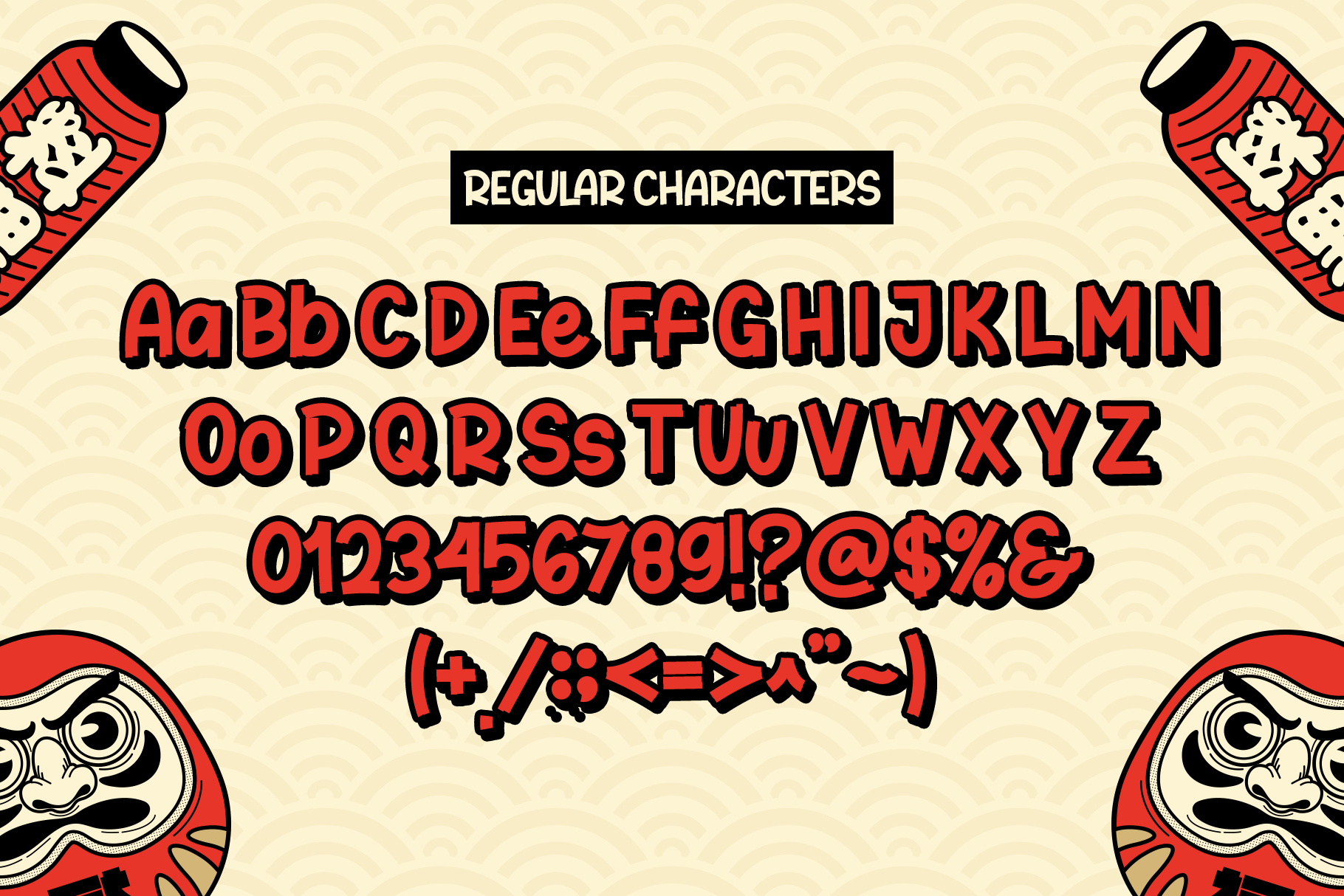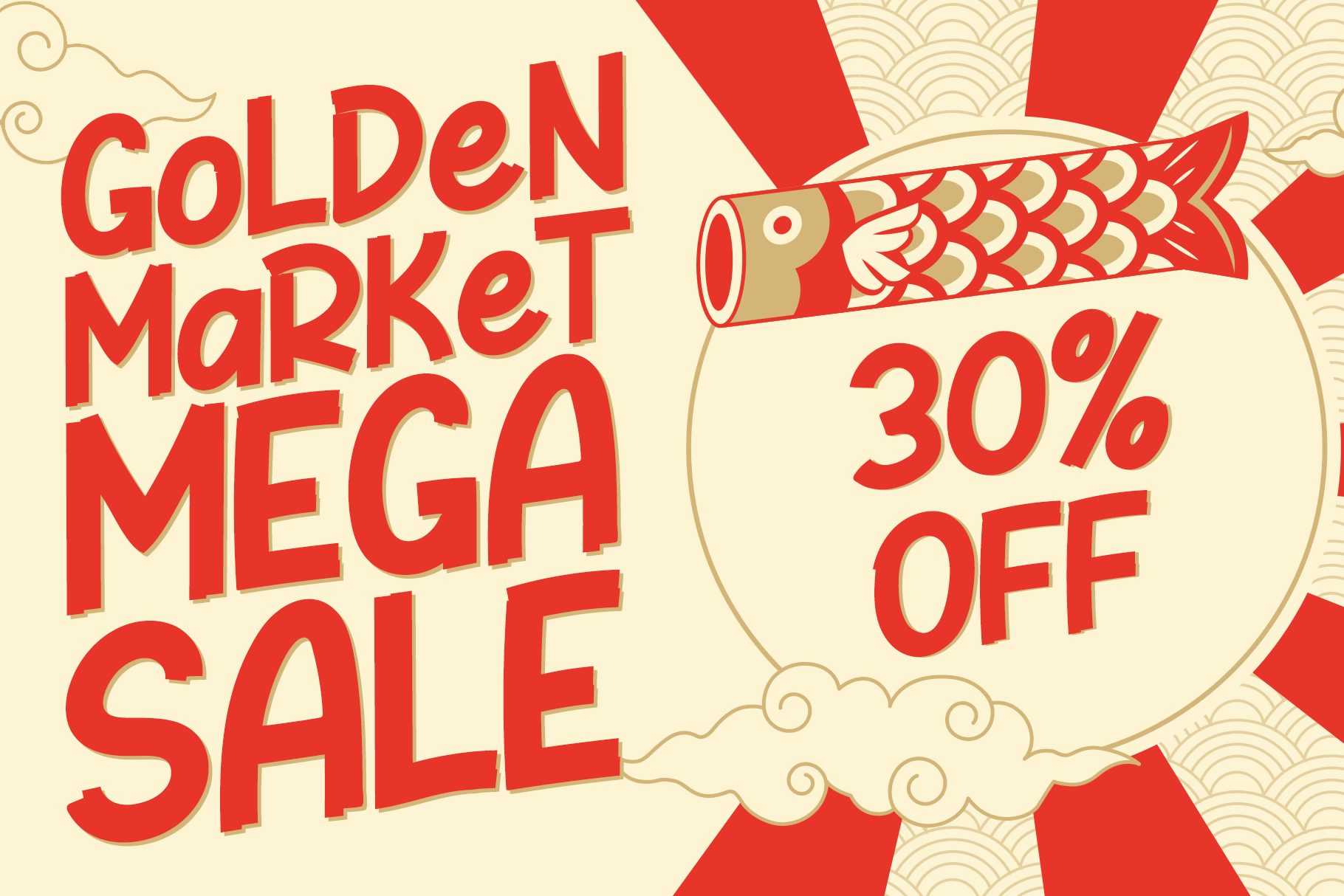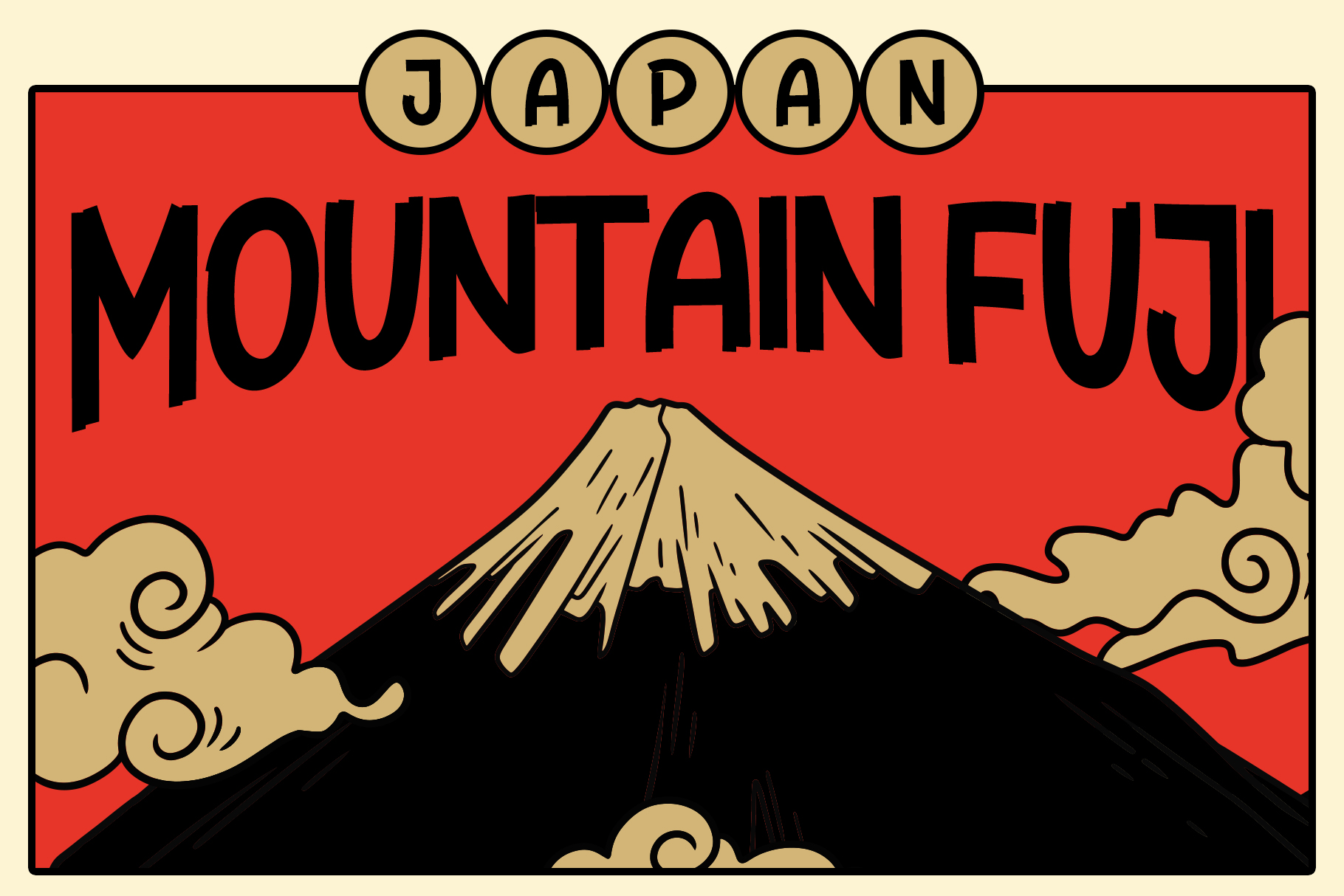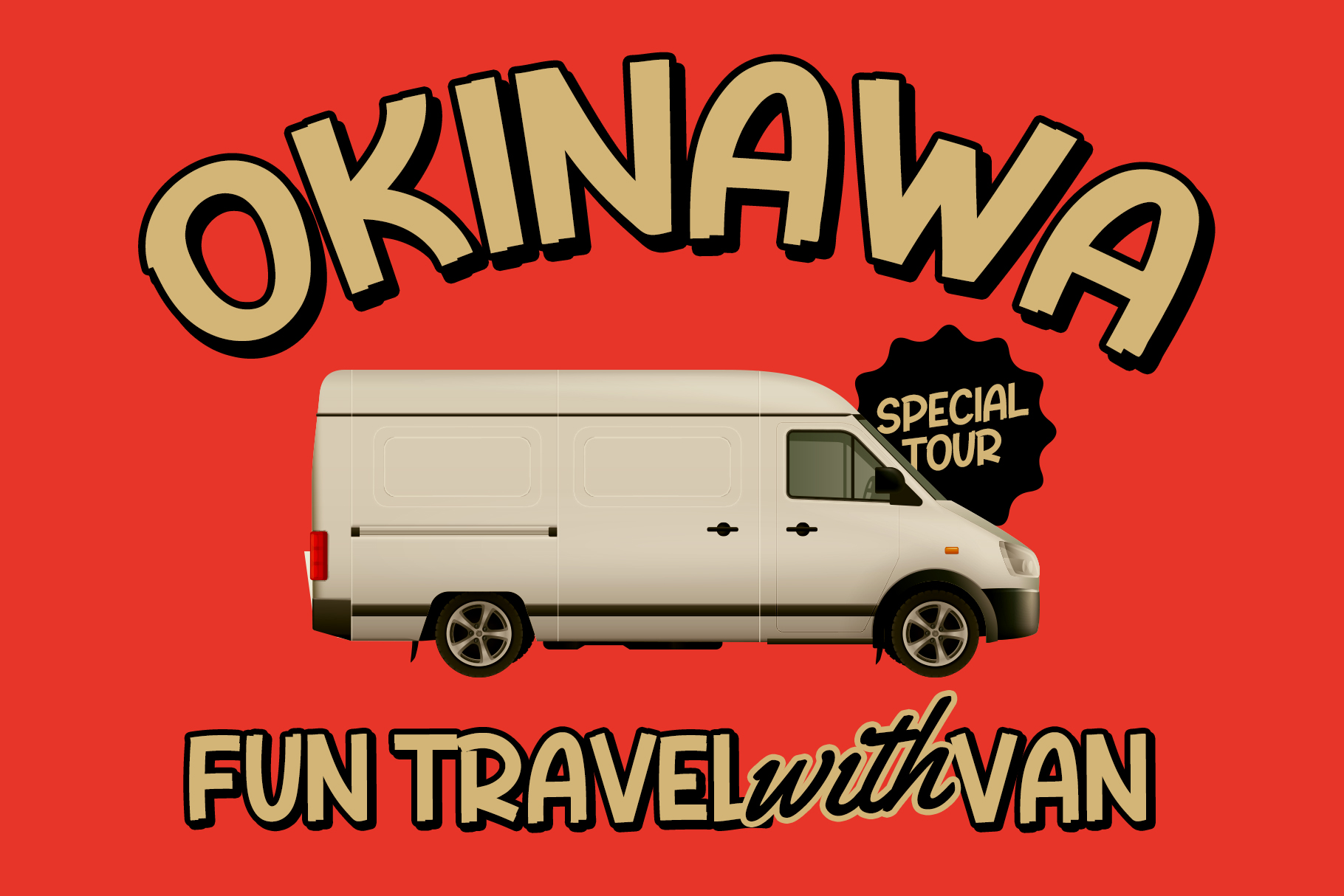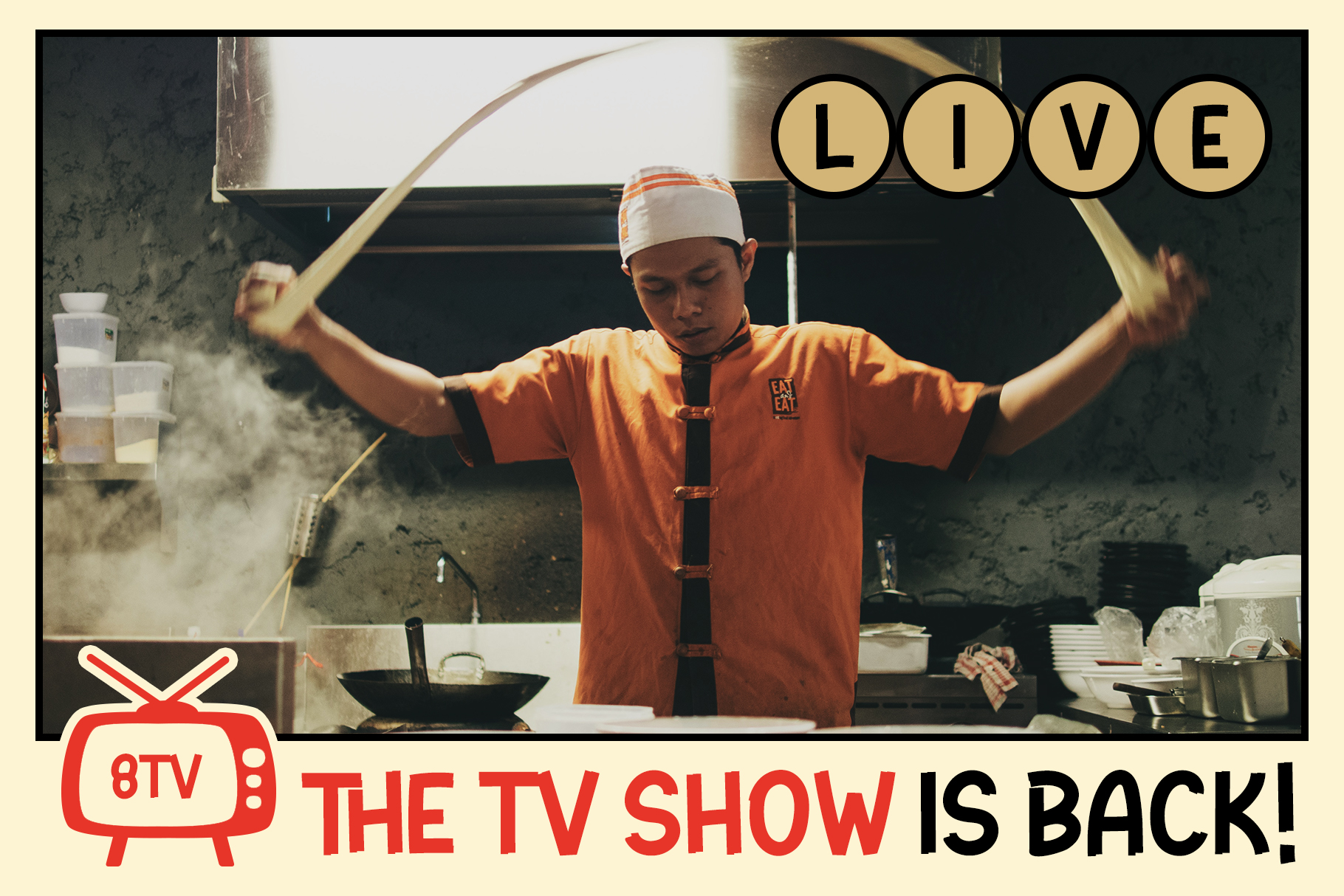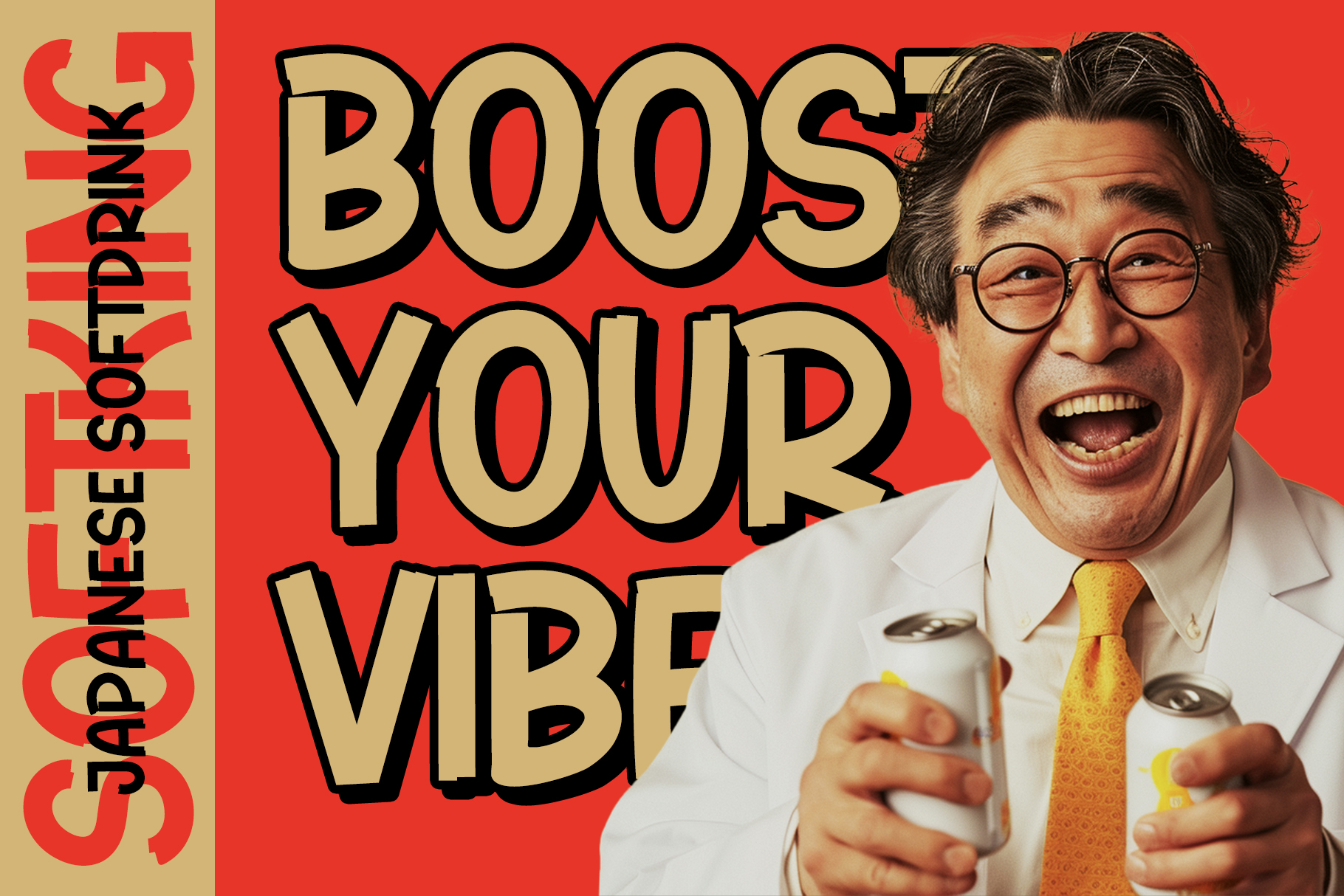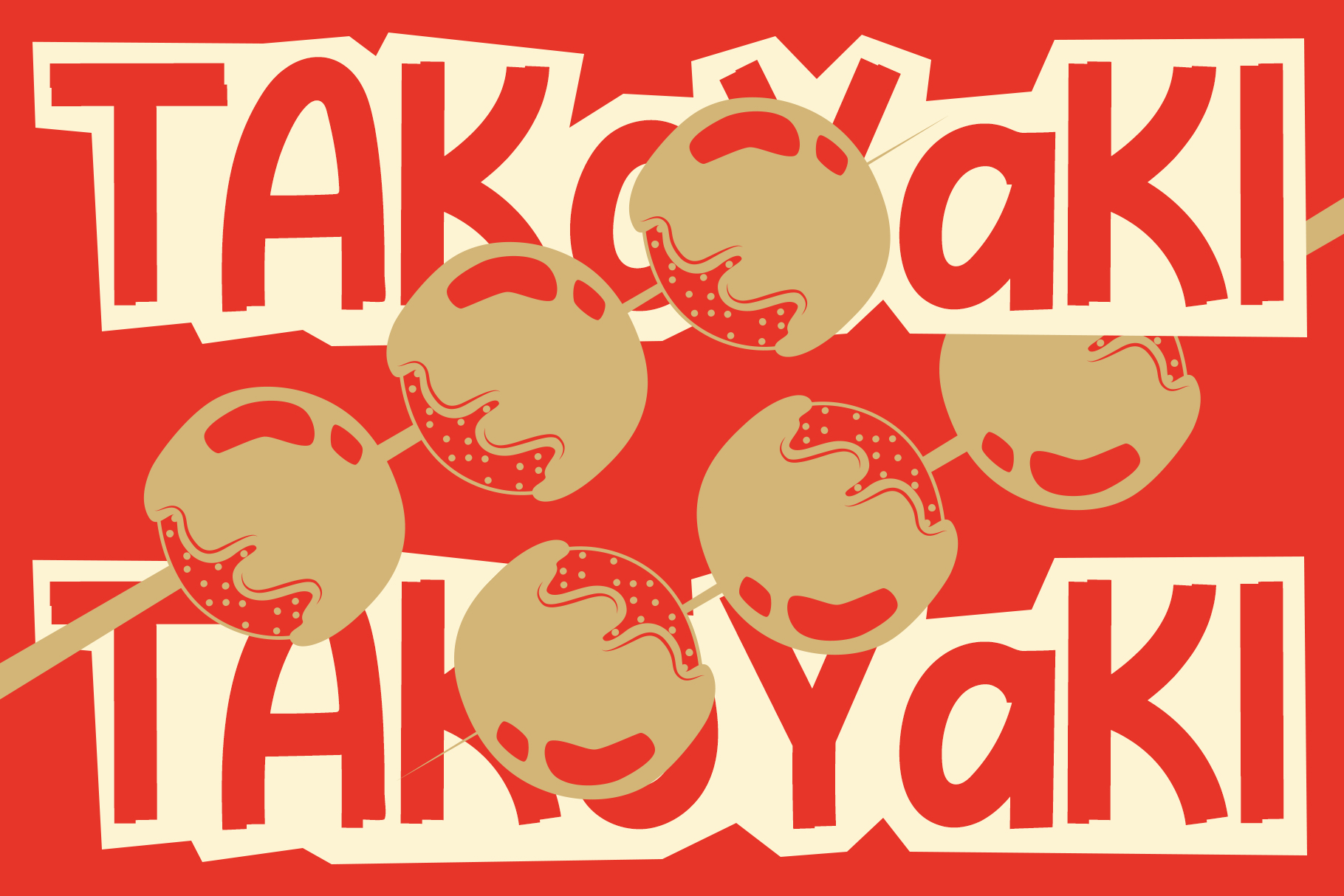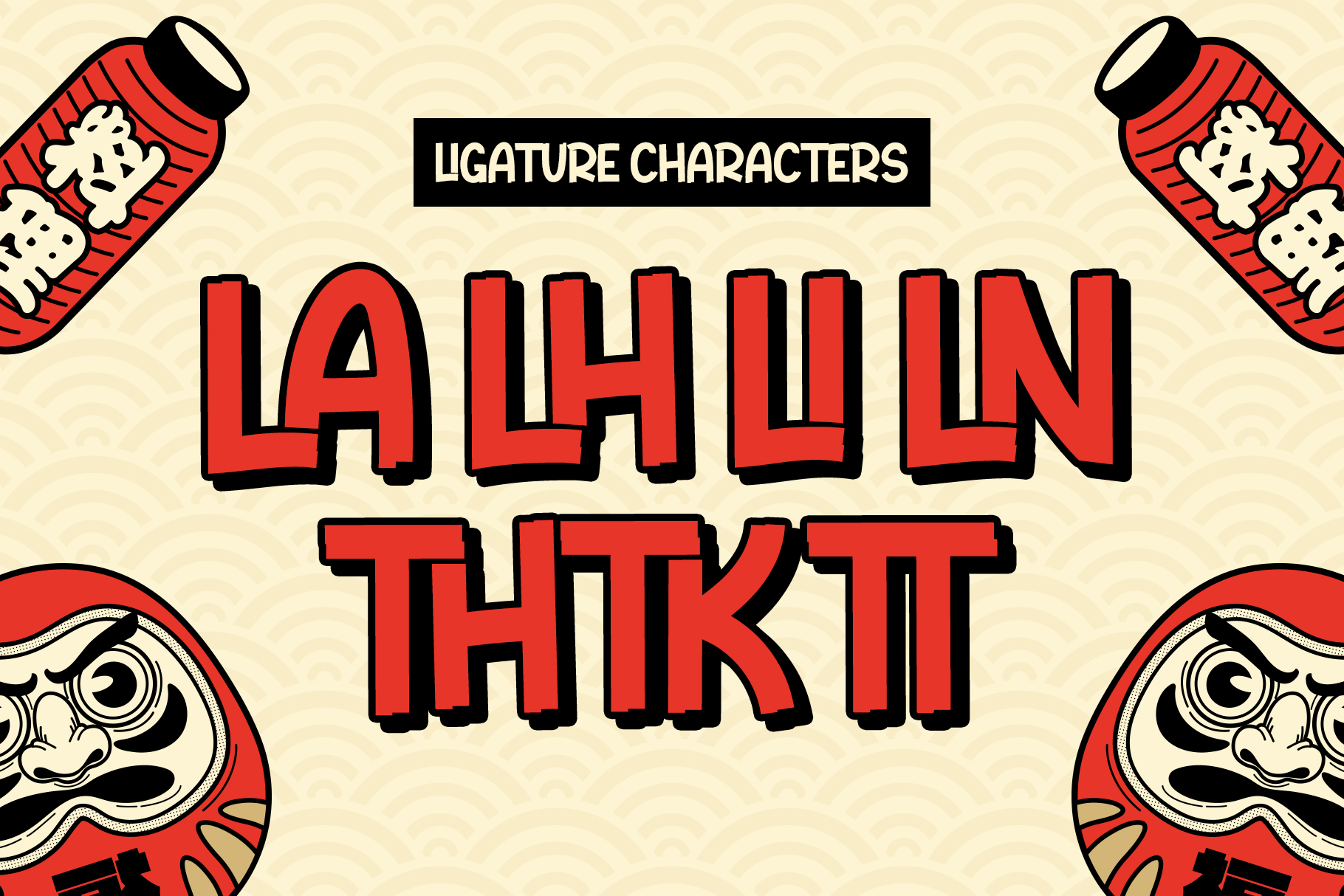
Blankon – Display Font
About Blankon - Display Font
Discover Blankon, a bold and eye-catching Japanese display font designed to bring a unique touch to your projects! With its strong, hand-drawn characters inspired by Japanese culture, this font adds a fun and playful vibe to posters, packaging, branding, and more.
• Ligature